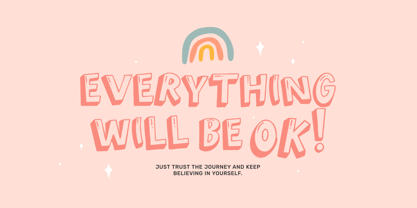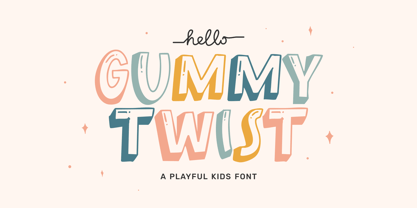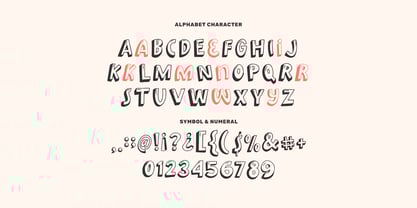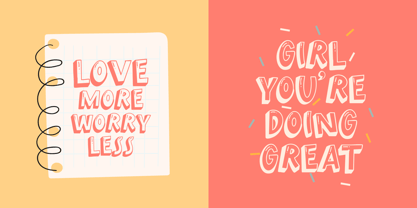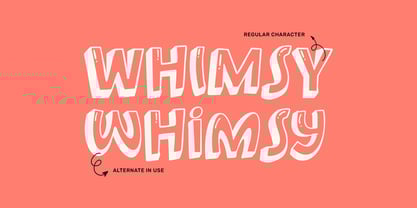
Gummy Twist
by Imoodev
The Gummy Twist Font Family was designed by Aulia Savira Putri and published by Imoodev. Gummy Twist contains 1 styles. More about this family
GUMMY TWIST is a vibrant and playful font specifically designed for children's projects. Each letter are varied in size and orientation, with some letters tilting slightly to one side, adding a dynamic and fun element to the overall design. This font also includes subtle details like shading and highlights, like three-dimensional effect.
GUMMY TWIST contribute to a cheerful and motivational atmosphere, making it ideal for books, advertisements, advertising, branding, posters, banners, product designs, art quotes, stickers, mugs, special events, product packaging or any kid-focused content.
Designers: Aulia Savira Putri
Foundry: Imoodev